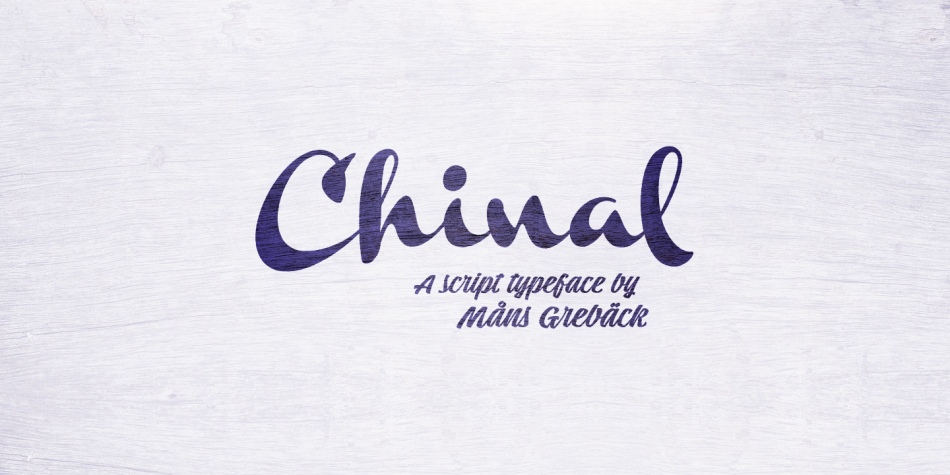
Chinal Font
Chinal Font is perfect for Asian fusion restaurant branding, contemporary art gallery exhibitions, minimalist architecture presentations, modern cultural center signage, zen wellness spa communications, and sophisticated East-meets-West design projects. This harmonious typeface works exceptionally well in international business presentations, cross-cultural event materials, and global brand identity systems.
What makes Chinal Font so exciting is its perfect fusion of Eastern calligraphic traditions with Western typographic precision that creates a unique cross-cultural aesthetic. The font features balanced letterforms with subtle brush-stroke influences and contemporary geometric elements that bridge traditional Asian design philosophy with modern international appeal. Its multicultural character demonstrates exceptional sensitivity to global design sensibilities, making it ideal for brands seeking to convey cultural harmony, international sophistication, and universal accessibility.
Chinal Font comes in multiple weight variations including Light, Regular, Medium, and Bold styles. The font family also includes decorative elements inspired by both Eastern and Western traditions, cultural symbols, and harmonious ornaments that enhance the cross-cultural quality and provide extensive creative possibilities for international design applications.
The font's balanced construction ensures excellent readability across diverse cultural contexts while maintaining its distinctive international character. Professional designers appreciate its comprehensive Unicode support and specialized features that ensure consistent performance in multilingual applications spanning Eastern and Western languages.
Chinal Font has established itself as a preferred choice among creative professionals working with international and multicultural brands. Its ability to convey cultural harmony and global sophistication makes it an invaluable asset for organizations seeking to establish authentic connections with diverse, international audiences through thoughtful typography.